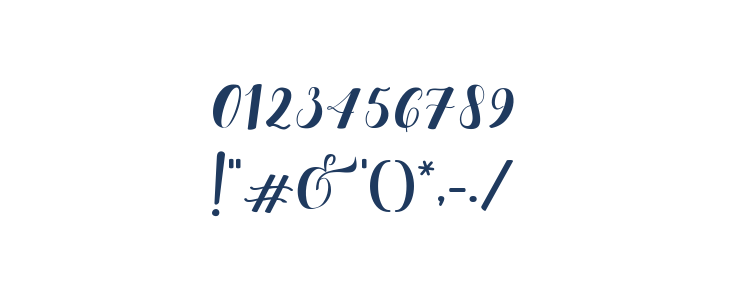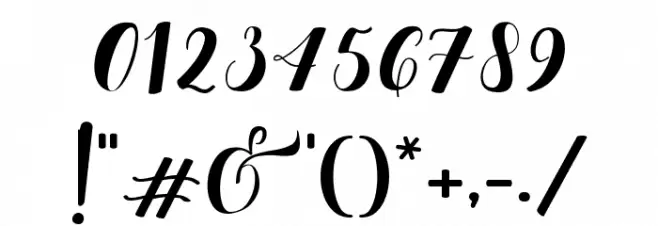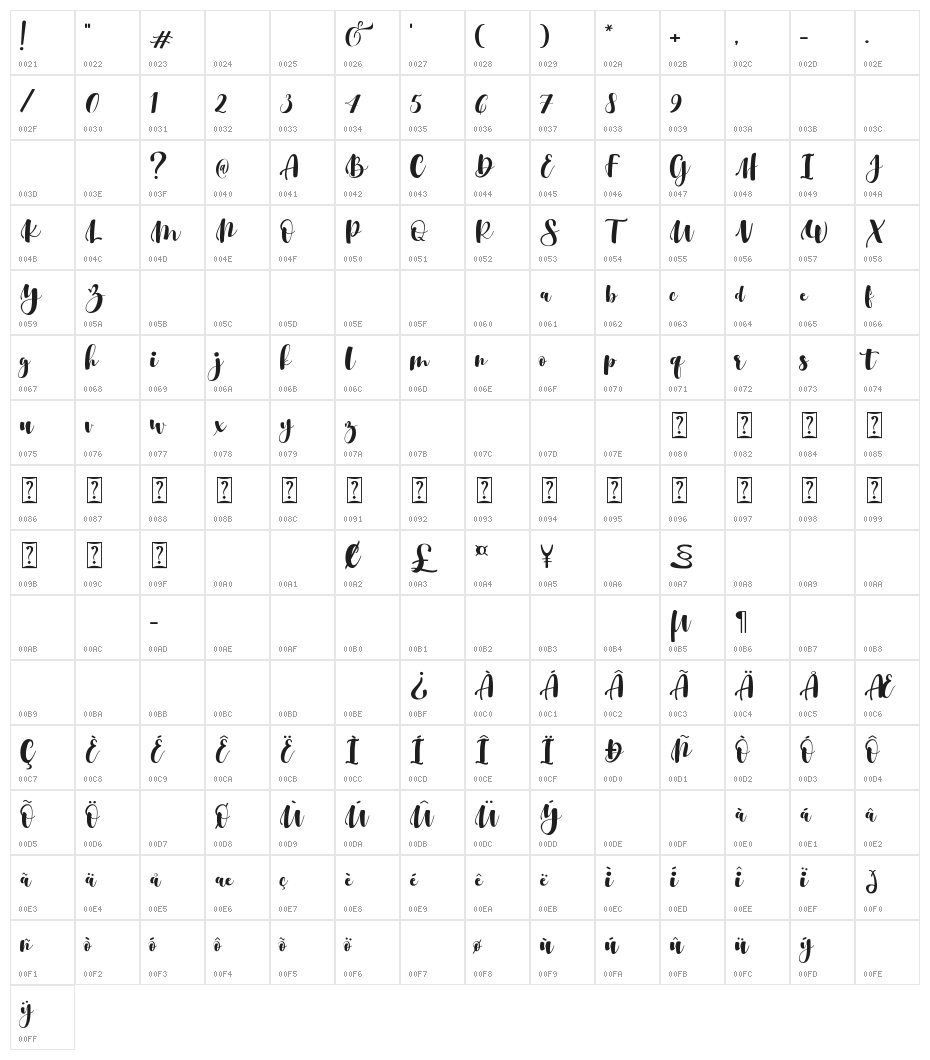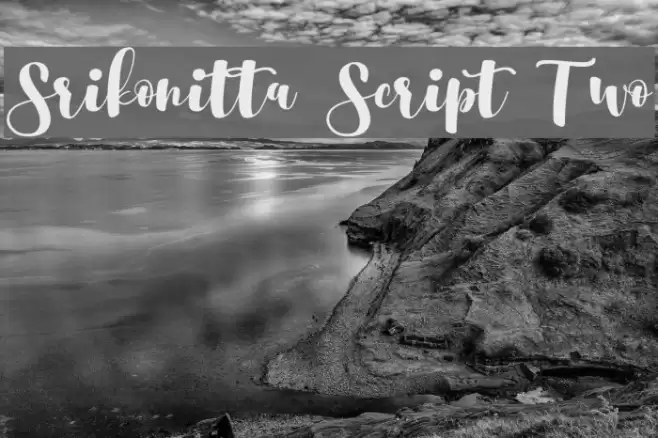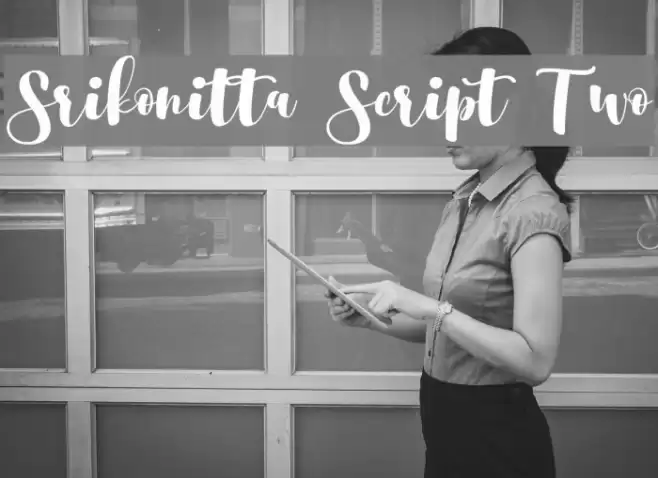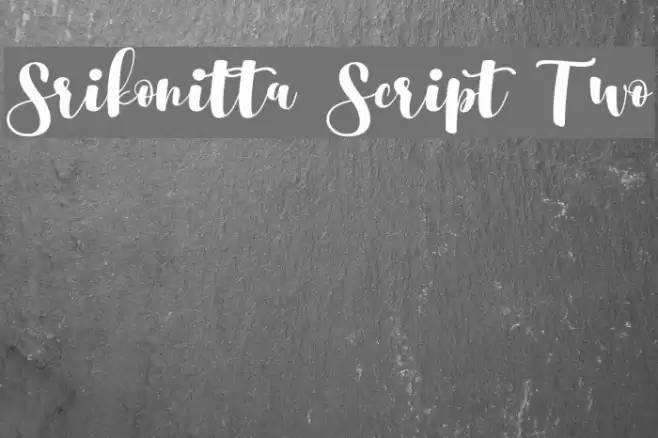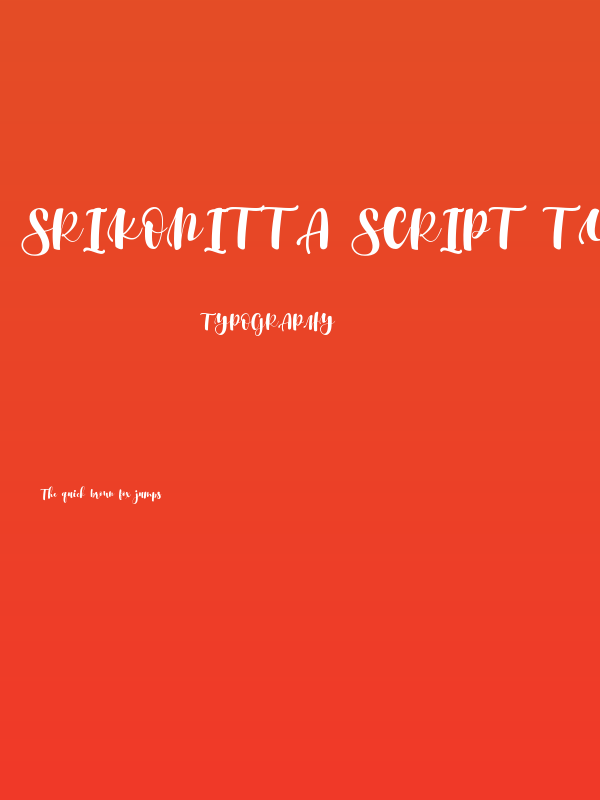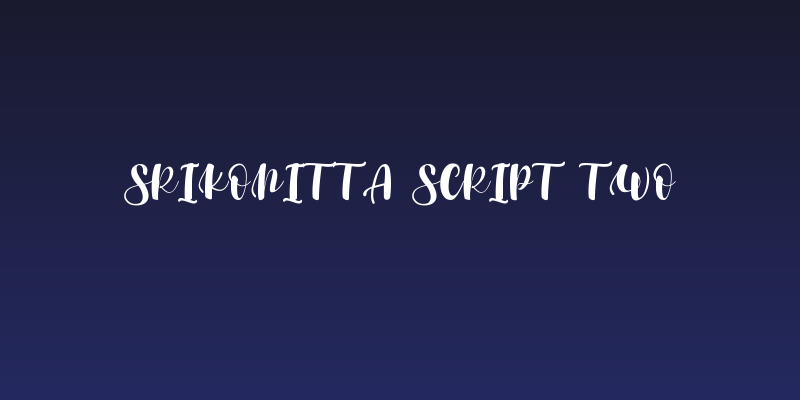
Srikonitta Script Two Font
Srikonitta Script Two Description
This elegant script font features flowing, cursive letters with a modern flair. The uppercase letters are characterized by their sweeping loops and flourishes, creating a sense of movement and grace. The lowercase letters maintain this fluidity with smooth, connected strokes that enhance readability while retaining an artistic touch. The numerals are bold and slightly rounded, complementing the overall style. Special characters are thoughtfully designed, incorporating the same decorative elements seen in the alphabet. This font exudes sophistication and charm, making it ideal for projects that require a personal, handwritten feel.